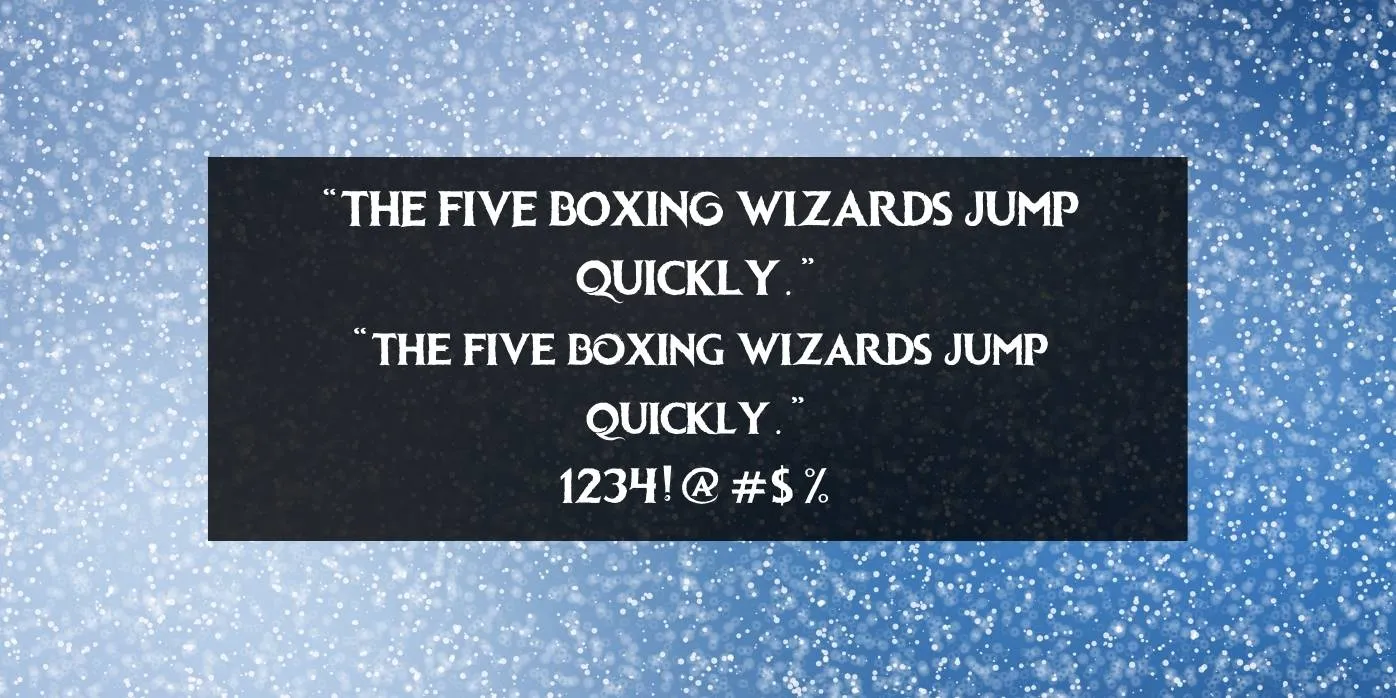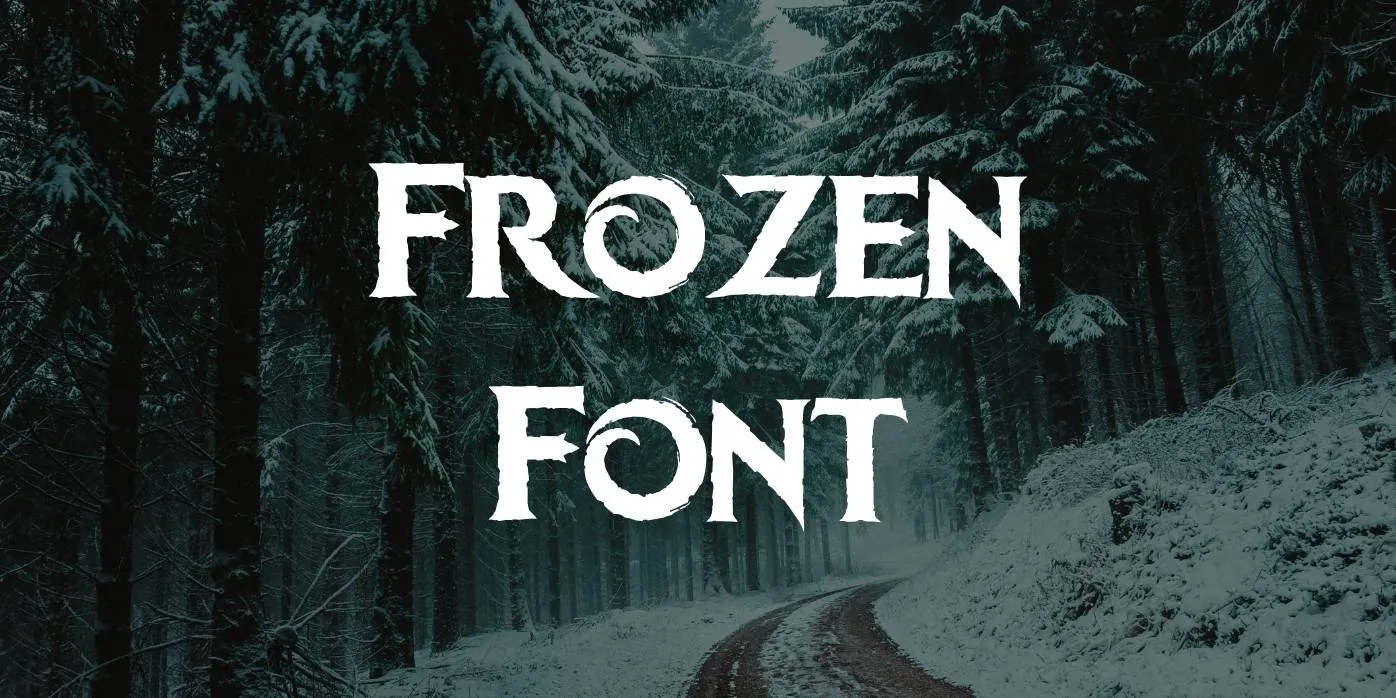
Frozen Font
Today, we introduce a stylish font family famous with the name Frozen Font. This family was developed by Kustren. It belongs to the fancy font family. This staggering font family has come into existence with two weights including Regular and Alternate.
It was released on 28th November 2015. This font supports almost all international languages like Latin, Cyrillic, and more. You can easily download it from our website with a simple click. It is a great choice for headlines, logos, branding, and other creative applications where a touch of icy cool is desired.
For more classic features, you will have to use its alternative wicked font which has the same features. This typeface consists of many stylish letters. This typeface is also used for Adobe Photoshop and Canva. Also, it provides the facility of an online generator tool by using this you can create many designs.